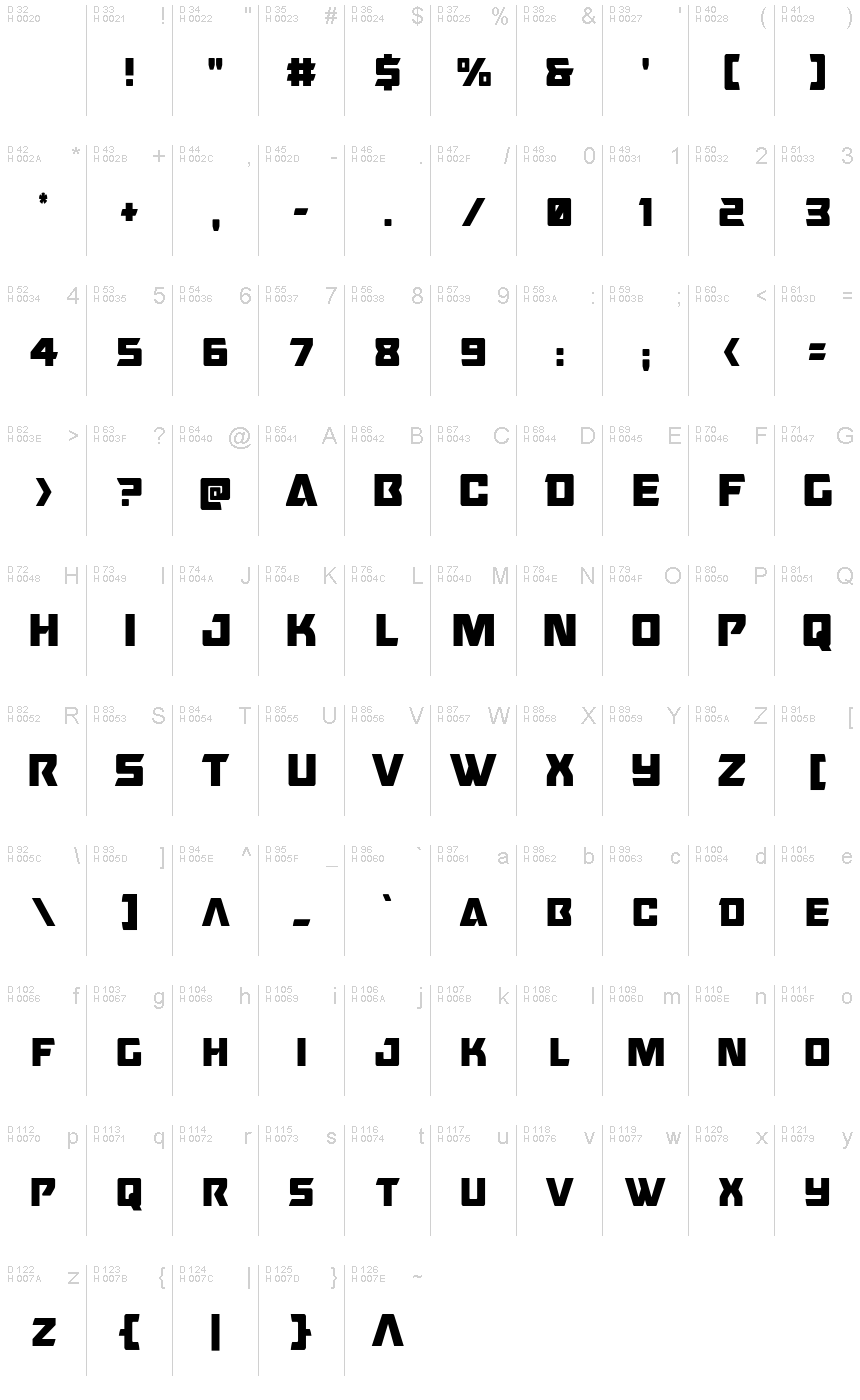
Oceanic Drift Condensed
Oceanic Drift is a bold, futuristic display font that exudes a sense of drift and exploration. Designed by Daniel Zadorozny, this expanded condensed typeface features sharp, angular letterforms that evoke a sleek, technological aesthetic. The strong, confident lines and expansive width create a striking, attention-grabbing presence, making it well-suited for bold headlines, product branding, and dynamic visual identities. Oceanic Drift's distinct personality lends itself to a variety of design contexts, from science fiction-inspired projects to cutting-edge corporate communications.
This versatile font seamlessly blends tradition and innovation, offering designers a powerful typographic tool to craft unique and impactful visual experiences.